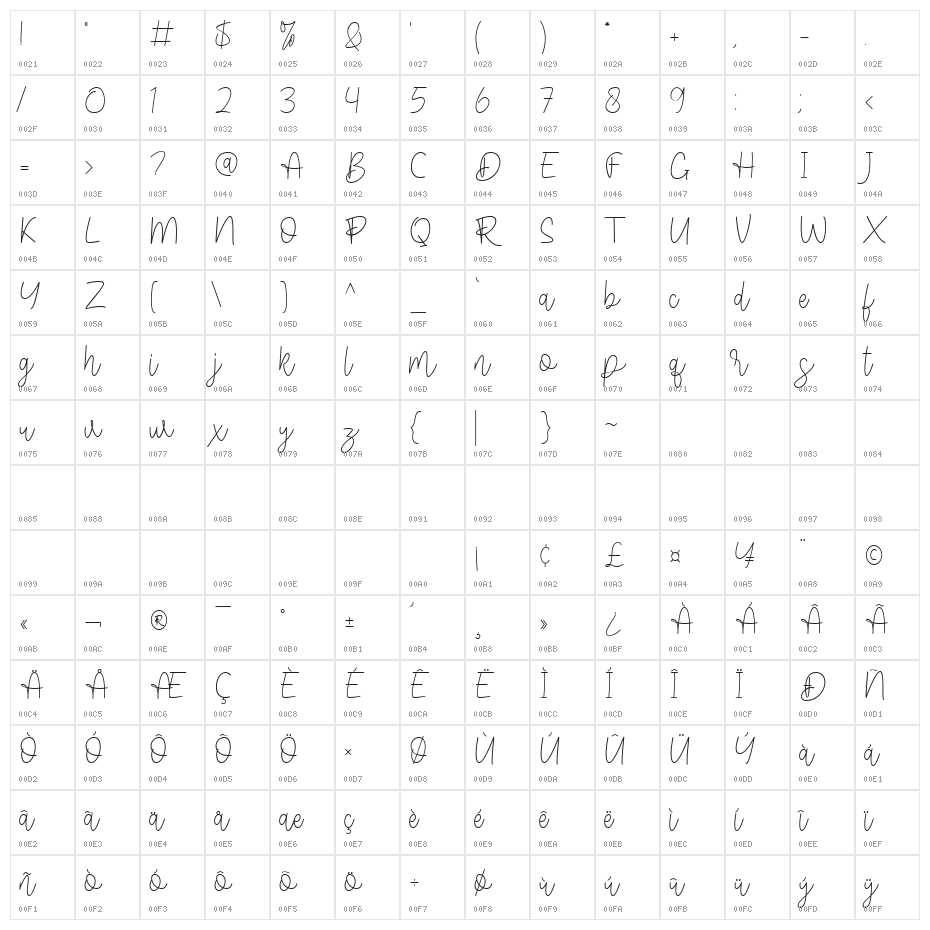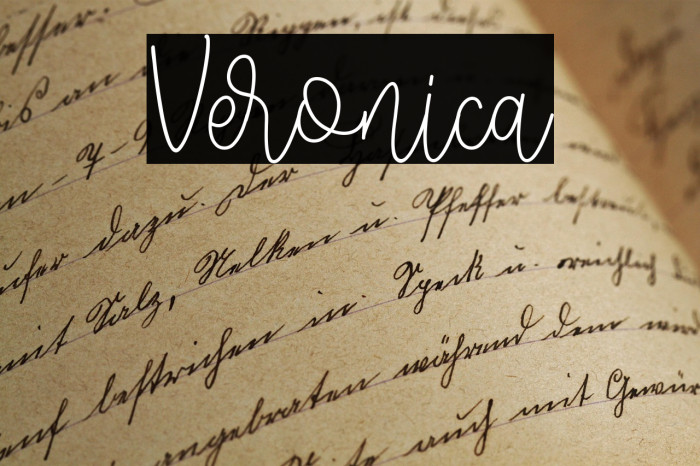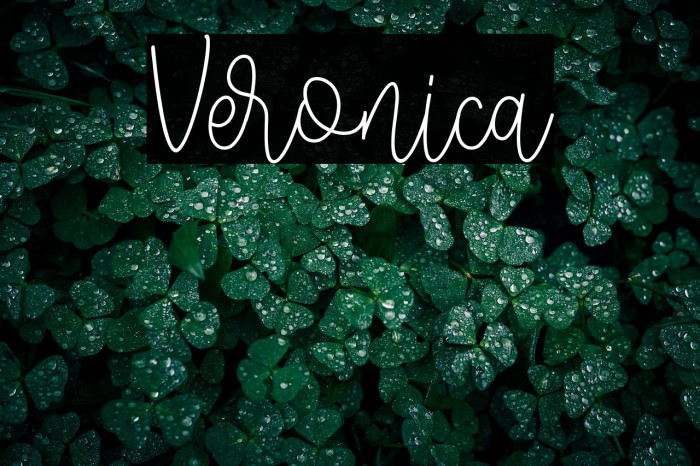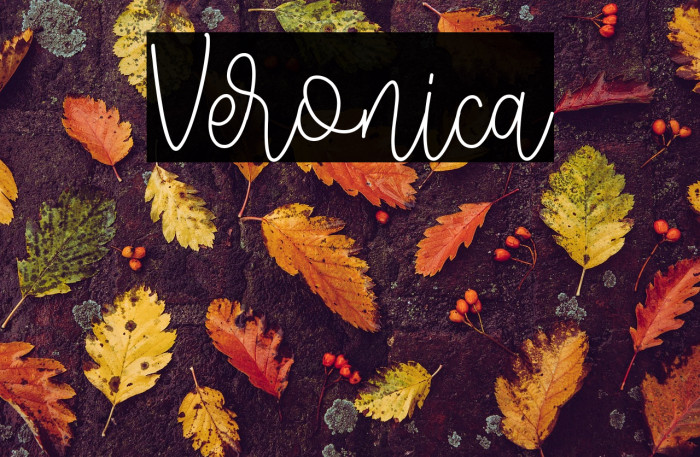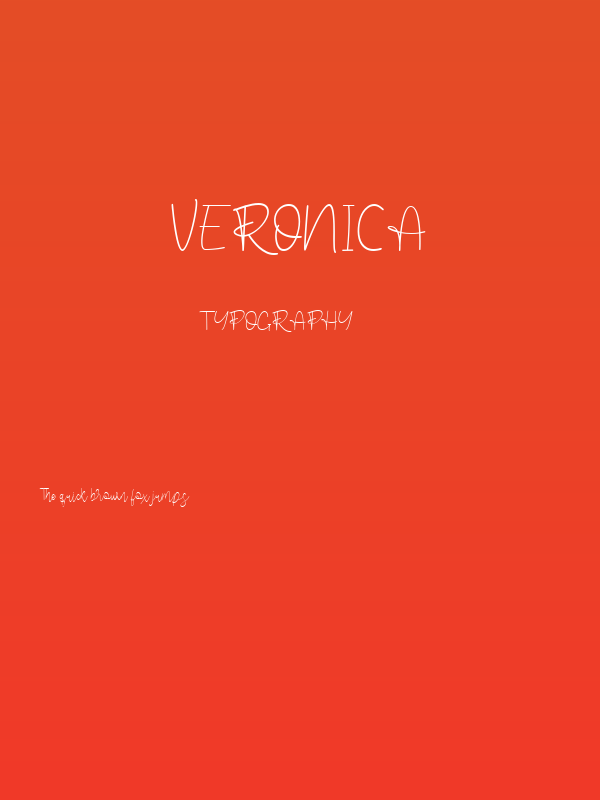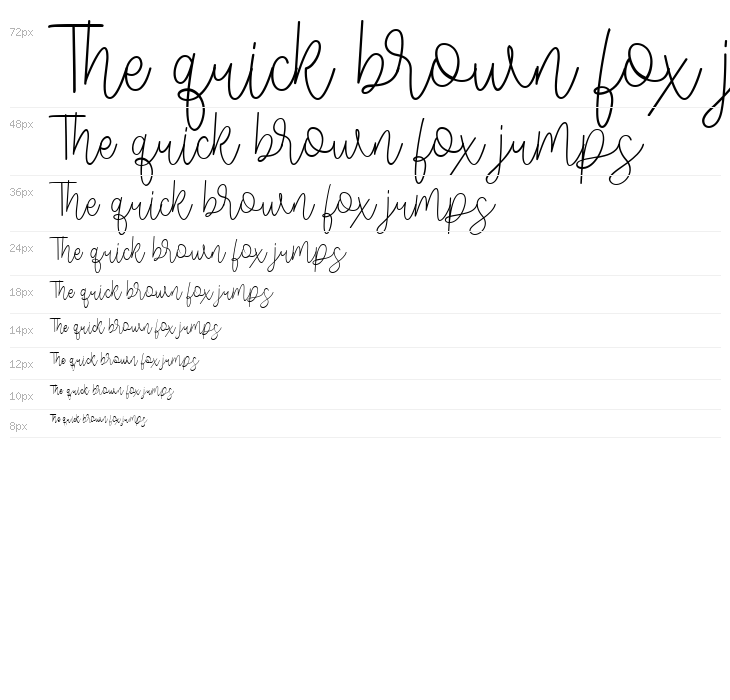
Veronica Font
Veronica Description
This font features a playful and whimsical handwritten style, characterized by its flowing and interconnected letterforms. The uppercase letters exhibit a unique blend of curves and angles, giving them a lively and dynamic appearance. The lowercase letters maintain a consistent rhythm, with elongated ascenders and descenders that add to the font's charm. The numerals are rounded and maintain the playful aesthetic, while the special characters integrate seamlessly with the overall design. This font's informal and friendly nature makes it suitable for creative and casual applications.